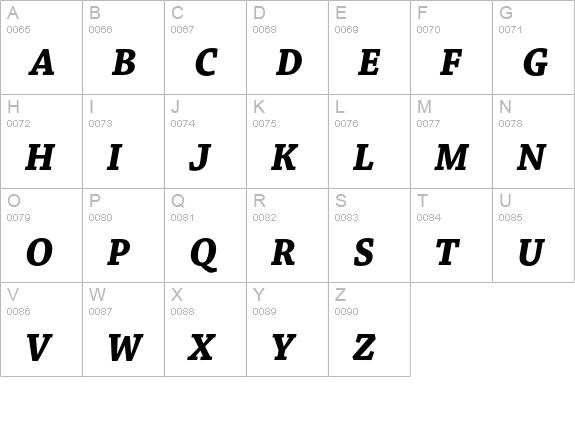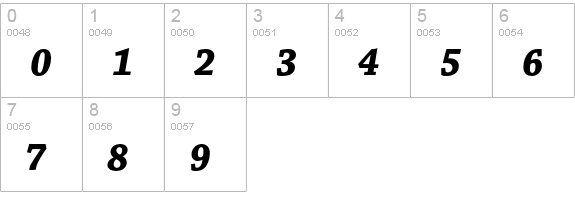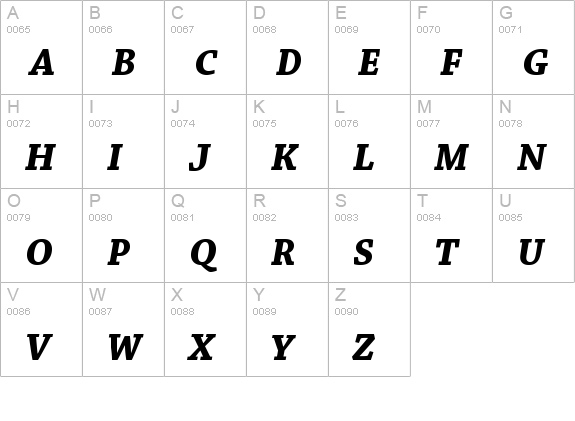
Chaparral Pro Bold Italic Font Details
Chaparral Pro Bold Italic is a strong, high-contrast, italic variant in the Chaparral typeface family \xE2\x80\x94 well suited to headlines, attention-grabbing titles, and strong calls-to-action.
Chaparral Pro Bold Italic is a dynamic and versatile font that combines the strong presence of a bold weight with the elegant flair of italic styling. Its distinct slant and thick strokes create a sense of modern sophistication, making it ideal for adding emphasis and style to your designs. Whether you're crafting a bold headline or adding a touch of creativity to your branding, Chaparral Pro Bold Italic is sure to make a statement. The best part? This striking font is available for free download at FontsMarket.com. With just a few clicks, you can elevate your projects with the bold and expressive charm of Chaparral Pro Bold Italic. Don't miss out on this opportunity to enhance your designs with this exceptional typeface. Download it today and let your creativity soar!